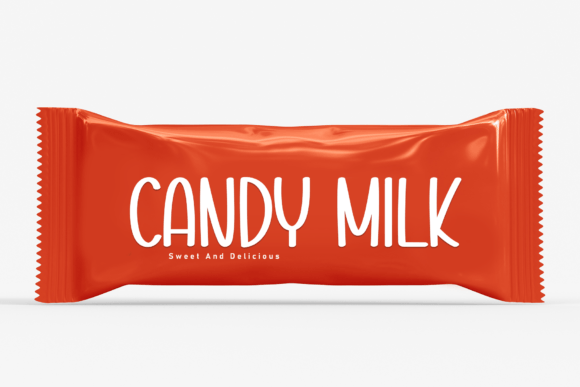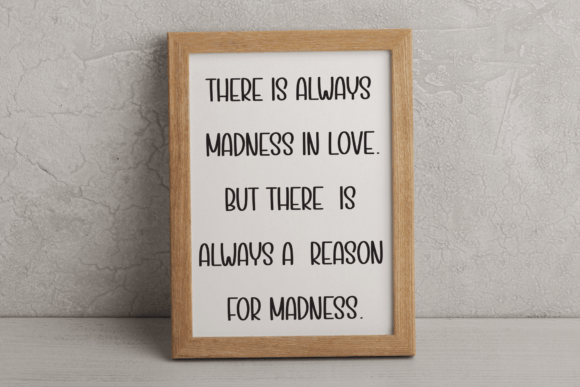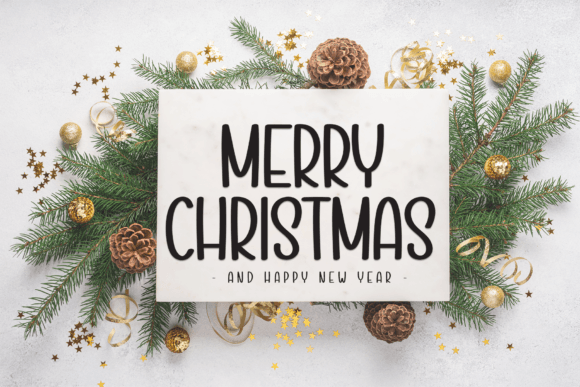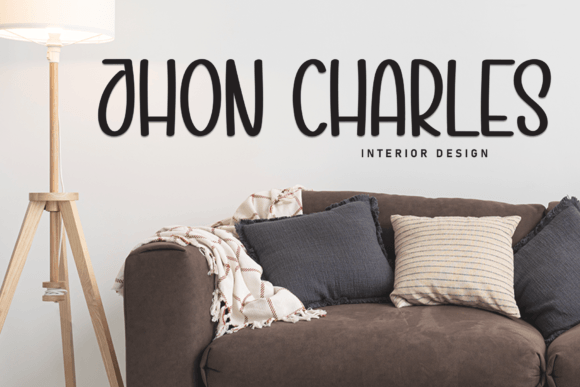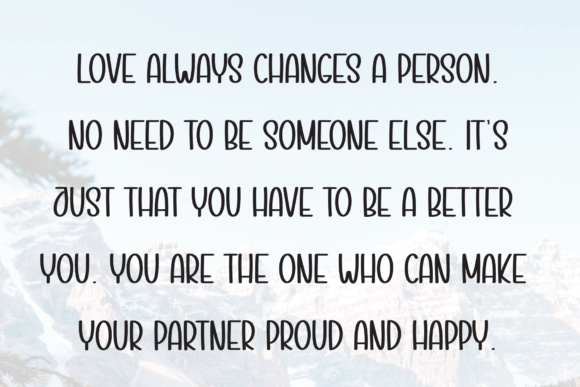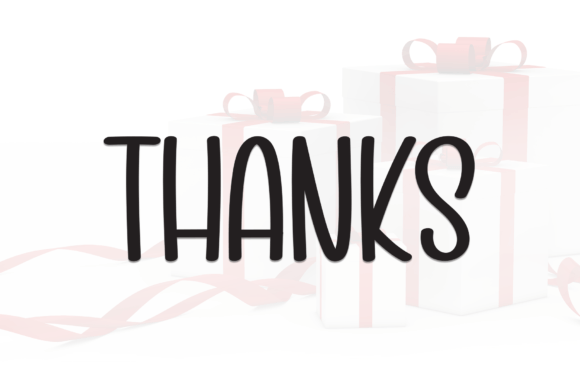
Introduction to Present Font
Have you ever stumbled upon the perfect font while working on a creative project, and it completely elevates the entire design? For many designers, this moment is what makes the job so rewarding. It happened to us when we discovered the Present Font – a sweet and friendly handwritten display font that adds a touch of fun to any design.
Whether you’re creating wedding invitations, cards, or just need a playful font for your next design, the Present Font is an excellent choice. This high-quality font is perfect for designers who want to add a personal and creative touch to their projects without compromising on style. With its transparent background, you can easily overlay it on any design element, making it a versatile design resource.
Key Features of Present Font
- High-quality design resource with a transparent background, ideal for creative projects
- Resolution-independent design, ensuring crisp and clear display on any screen
- Perfect for presentations, reports, and other visual aids where a clean and modern look is required
- Can be easily customized to fit your brand’s style and tone
Honest Review: Present Font
I recently stumbled upon the Present Font, and I must say it’s been a game-changer for my creative projects. This high-quality font is perfect for designers looking to add a touch of elegance and sophistication to their work.
- ✨ The Present Font comes with a transparent background, making it incredibly versatile and easy to use.
- ✨ The font is well-designed and has a clean, modern look that works well for a variety of creative projects.
While the Present Font is an excellent design resource, there are a few limitations to keep in mind:
- ⚠️ The font may not be suitable for projects that require a more playful or casual tone.
- ⚠️ The transparency can sometimes make the font difficult to read on certain backgrounds.
Overall, I’m thoroughly impressed with the Present Font. It’s a high-quality design resource that’s perfect for designers looking to elevate their work. With its transparent background and elegant design, it’s sure to be a hit for any creative project.
Tips for Getting the Most Out of Present Font
Experiment with different font sizes and styles to create a visually appealing design. Use Present Font in combination with other design resources to create a high-quality creative project. Consider using a transparent background to make your text stand out.